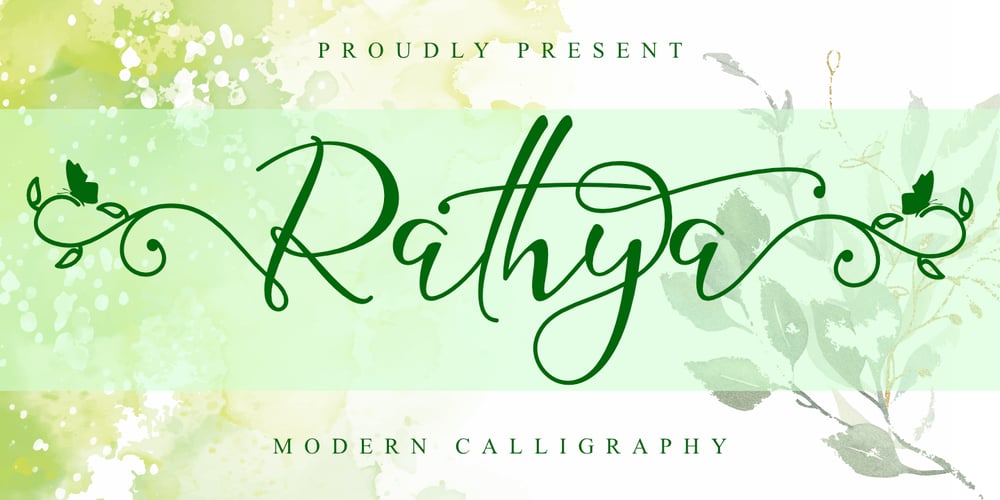
Rathya Font Family was designed by Stephanus Prabowo and published by Andrey Font Design. Rathya contains 1 styles and family package options. Rathya is a sweet and delicate handwritten font. Dainty and joyful, this font will be ideal for writing wedding invitations, cards or any other design that may need a romantic, personalized touch! This font is PUA encoded which means you can access all of the glyphs and swashes with ease!